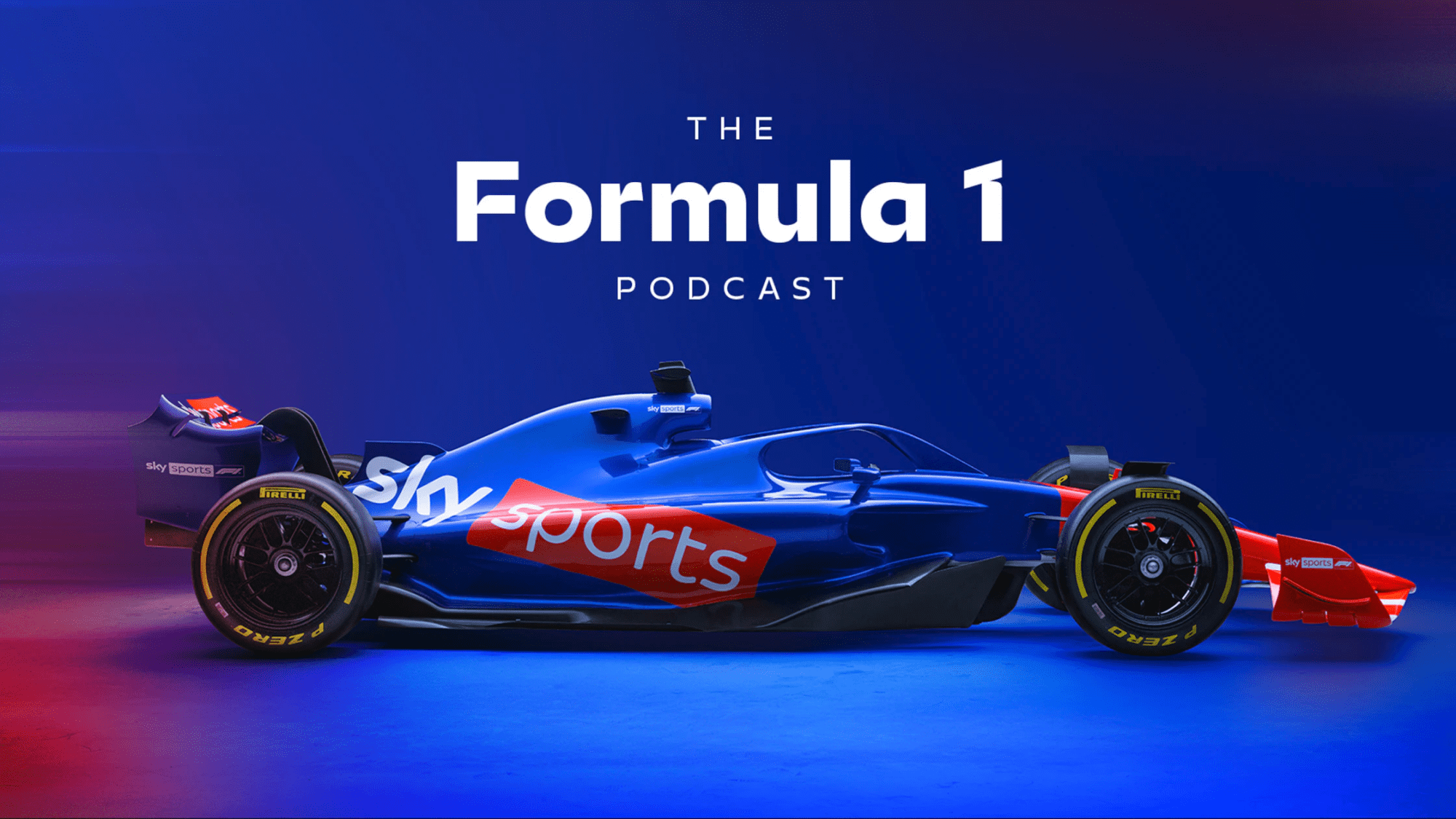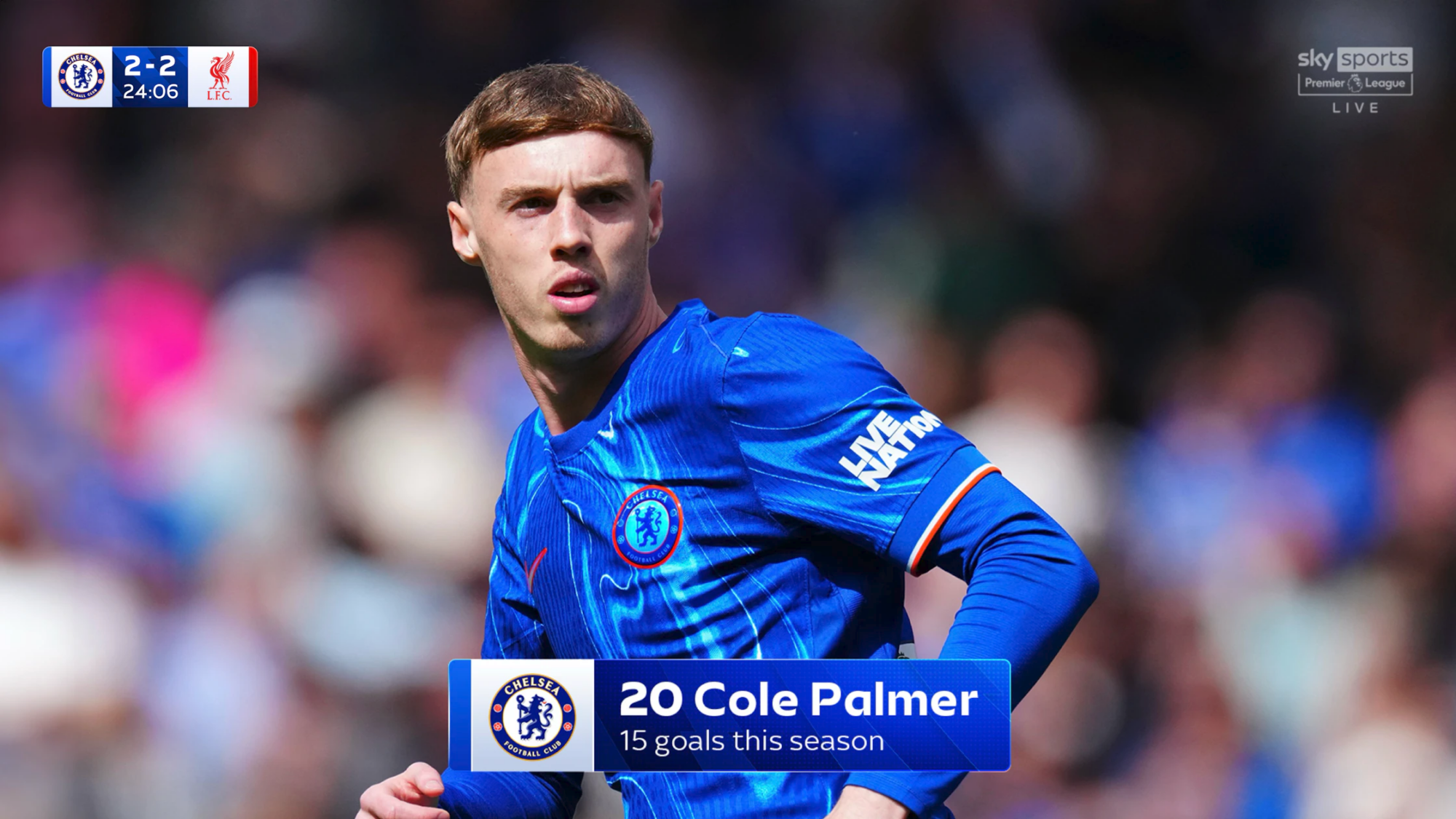
Sky Sports
Sky Sports needed a new, ownable typeface that could unify their sub-brands, improve brand consistency and bring a more welcoming tone to their typography. We were asked to create a flexible font family that could handle everything from high-impact headlines to dense tables of stats.